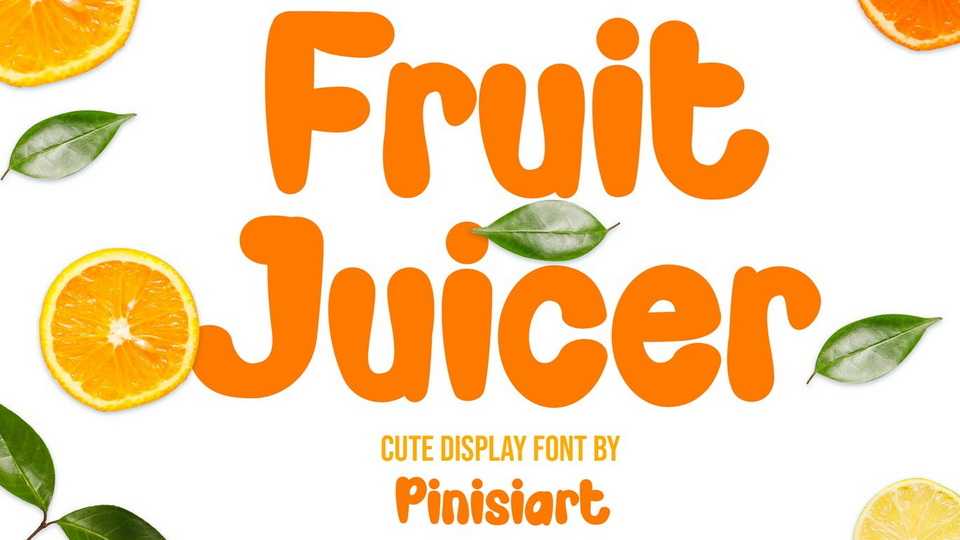
Download Fruit Juicer font, a handmade cartoon typeface. Fresh and inviting with lots of energy and vitamins. Fruit Juicer will spice thing ups with positivity.